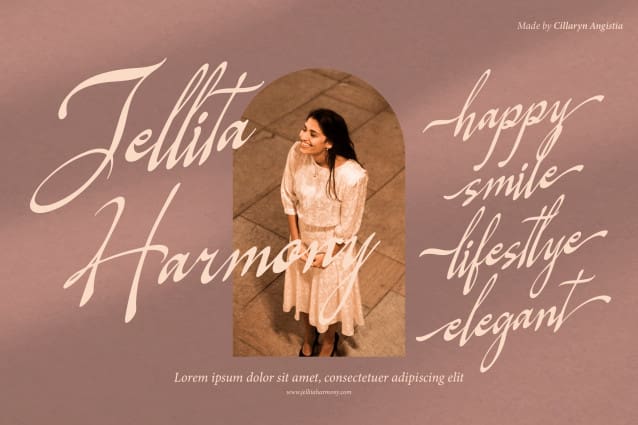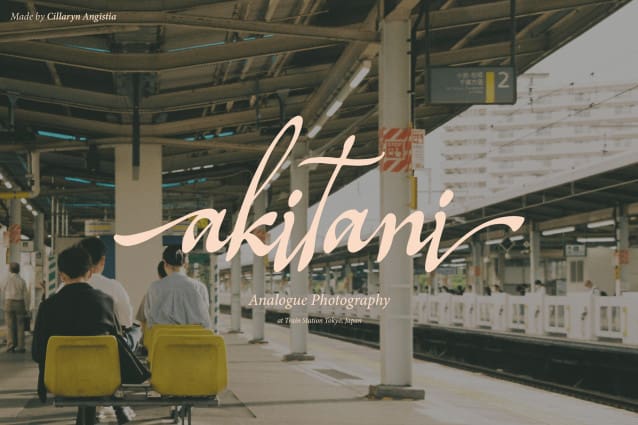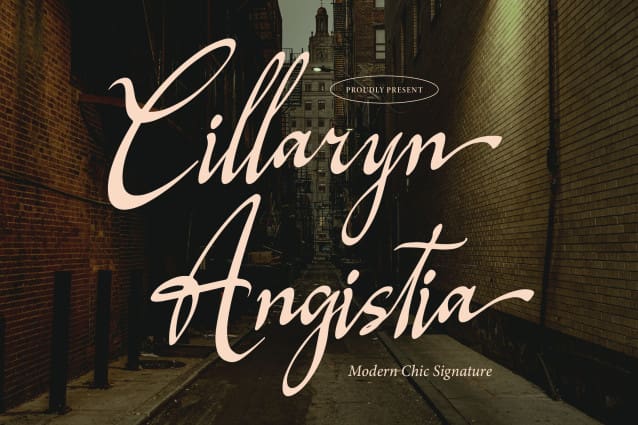
Cillaryn Angistia Font
Cillaryn Angistia Font | Modern Chic Signature, from Denustudios, suitable for any projects such as: logos, branding projects, homeware designs, product packaging, mugs, quotes, posters, shopping bags, t-shirts, book covers, name card, invitation cards, greeting cards, label, photography, watermark, special events, and all your other lovely projects that need a Modern Chic Signature taste.